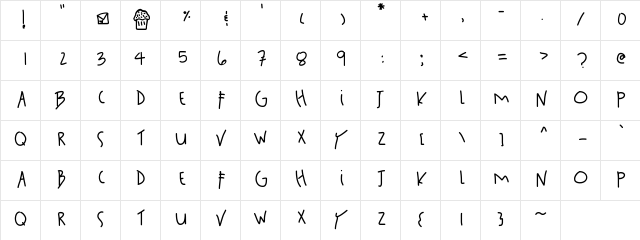
SanFrancisco Medium Free Font
SanFrancisco Medium
Design Context for SanFrancisco
SanFrancisco is a composed and adaptable typeface that performs quietly and consistently across a wide range of design contexts.
Pro Tip: Use SanFrancisco in both headline and body roles to test its range before committing to a single application.